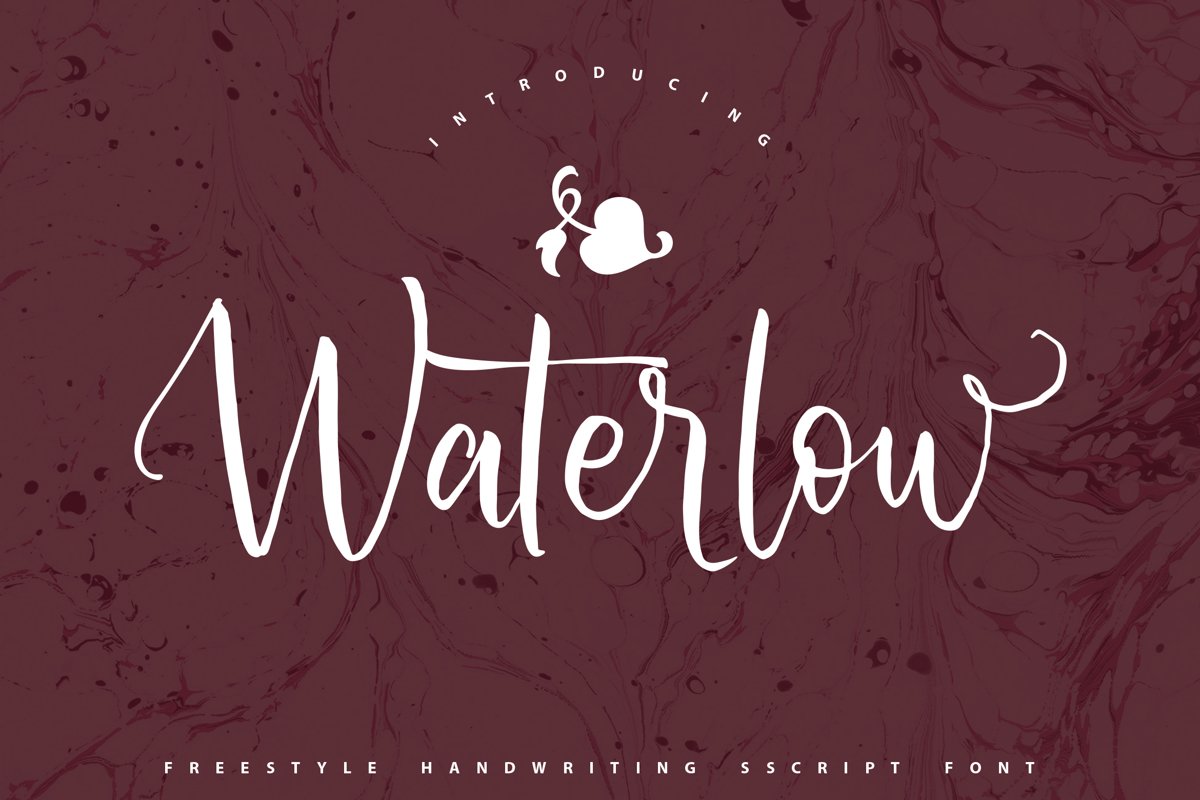
Waterlow | Handwriting Script Font
Waterlow
**Waterlow | Handwriting Script Font** with a calligraphy style, So beautiful on invitation like greeting cards, branding materials, business cards, quotes, posters, and more!
* Tons of glyphs
* Alternates and Ligatures
* Punctional
* Fonts include **Multilingual Support**